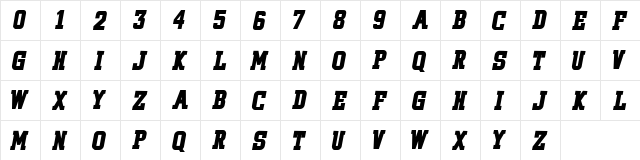
NHL Calgary Alternate Regular
Design Context for NHL Calgary Alternate Typeface
NHL Calgary Alternate offers clean, dependable letterforms without strong stylistic allegiance, making it a practical choice for designers who need flexibility.